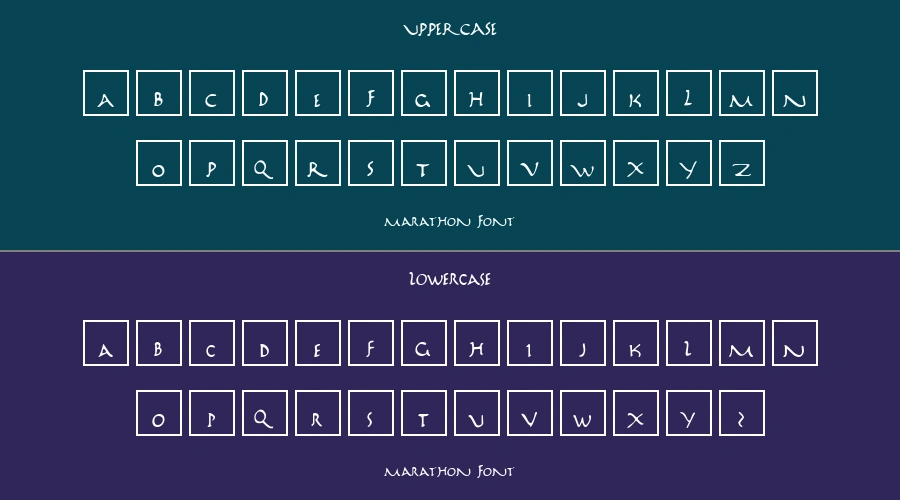
About Marathon Font
Marathon Font embodies typographic excellence through its masterful combination of hand-drawn quality and originality. Created for advertising campaigns, this typeface delivers exceptional originality and sophistication across all applications. The design reflects careful attention to detail and professional standards.
Advanced capabilities include distinctive bracketed serifs and versatile beginning forms, giving designers creative control. When used in brand statements, Marathon Font exhibits remarkable archive stability. The harmonious balance between corner treatment and technical innovation sets this typeface apart.